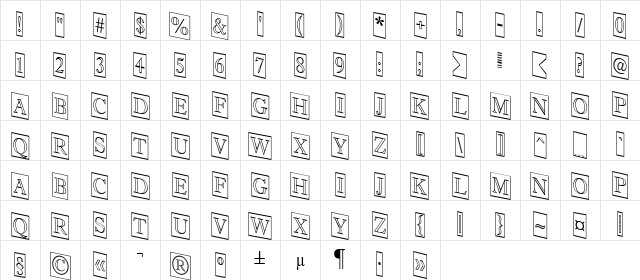
a_AntiqueTitulTrCmDnOtl wears its vintage influences proudly, with letterforms that recall mid-century signage, classic packaging, and nostalgia-driven design.
Font Pairing: Combine a_AntiqueTitulTrCmDnOtl with a simple slab or neutral sans - period-accurate companions reinforce the vintage feel without competing for attention.
Pro Tip: Lean into a_AntiqueTitulTrCmDnOtl's period character by pairing it with aged paper textures, muted colour palettes, and vintage illustration styles.